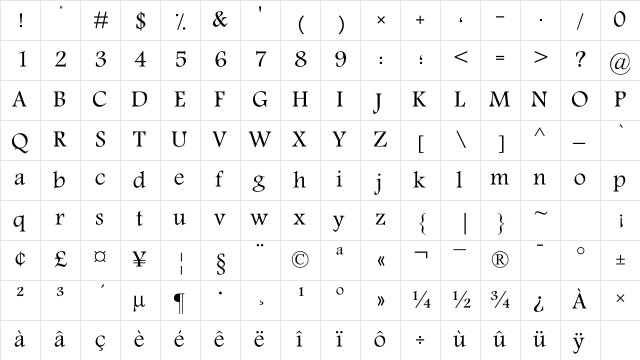
K Traffic K Traffic
Design Context for K Traffic Typeface
K Traffic is a composed and adaptable typeface that performs quietly and consistently across a wide range of design contexts.